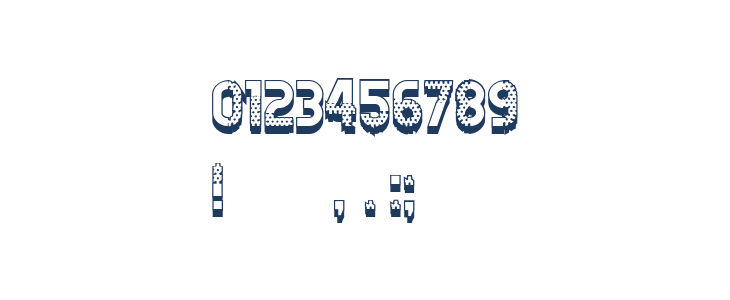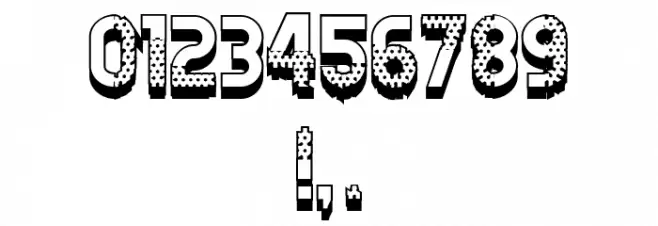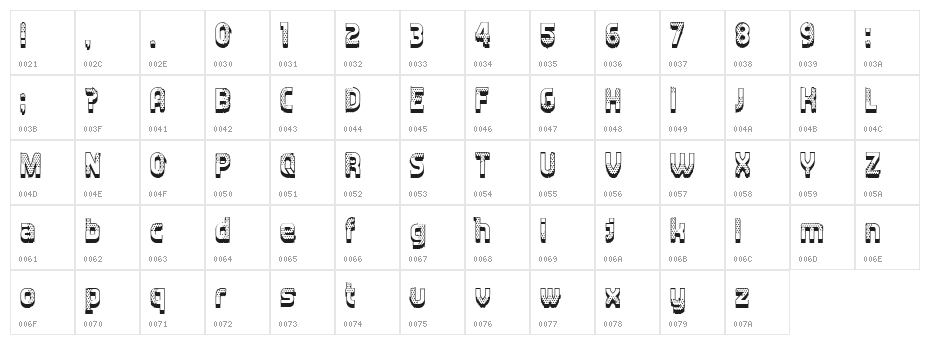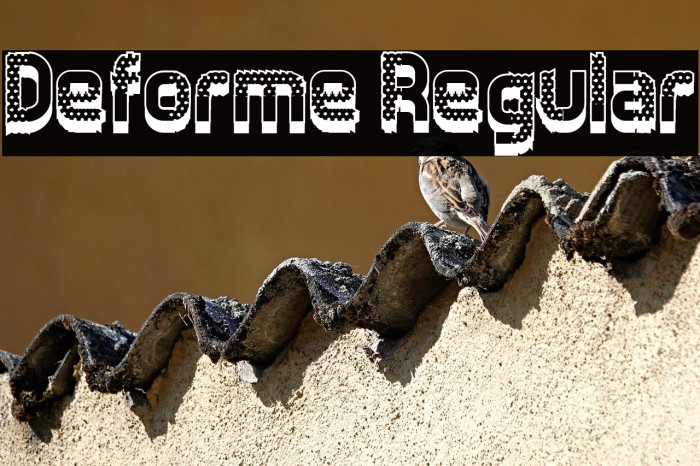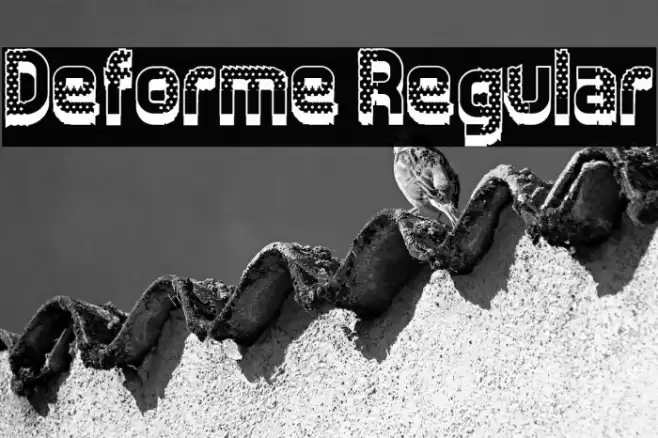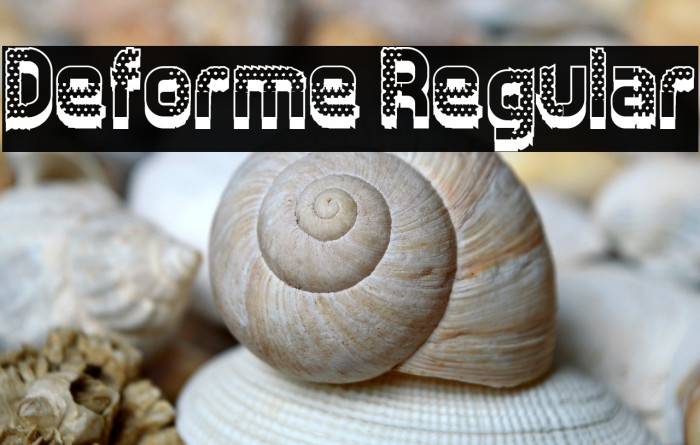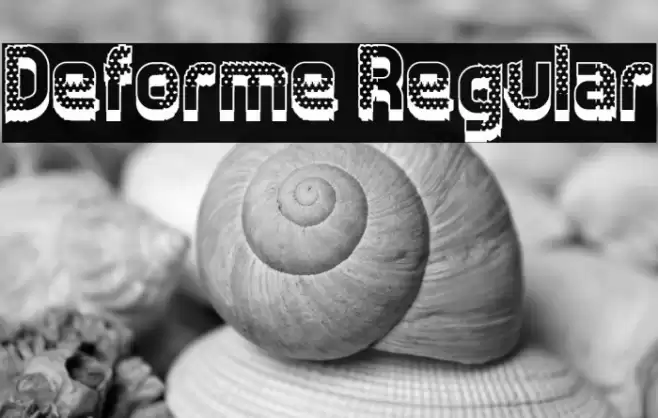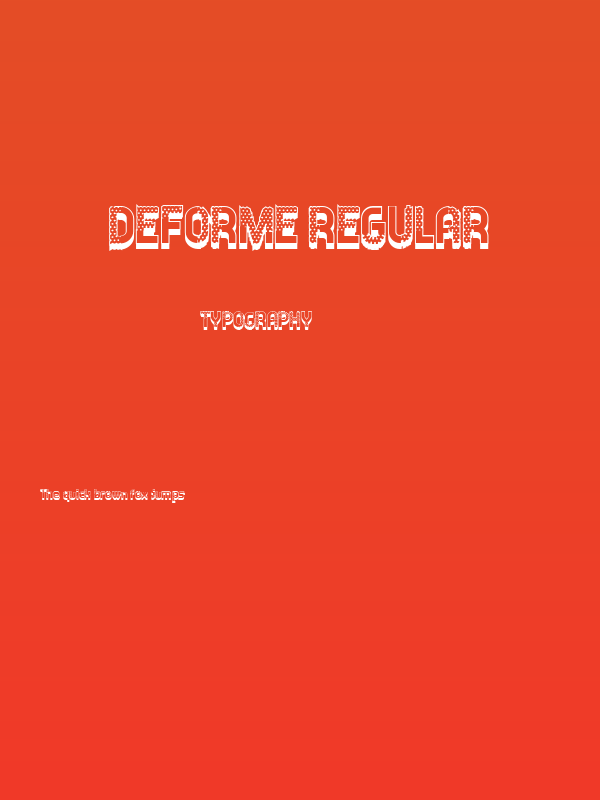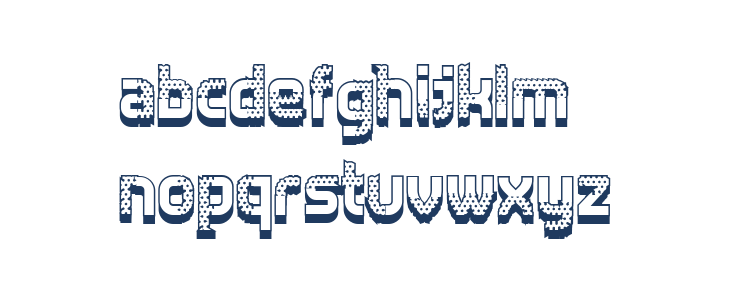
Deforme Regular Font
Deforme Regular Description
This font features a bold, decorative style with a unique 3D effect. Each character is outlined with a thick black shadow, giving it a striking appearance. The interior of the letters is filled with a dotted pattern, adding texture and visual interest. The uppercase and lowercase letters maintain a consistent style, with the numbers and special characters following suit. This font is designed to stand out and make a statement, perfect for eye-catching designs.
| Proposed Projects | Ideal for posters, headlines, and branding projects that require a bold and unique visual impact. |